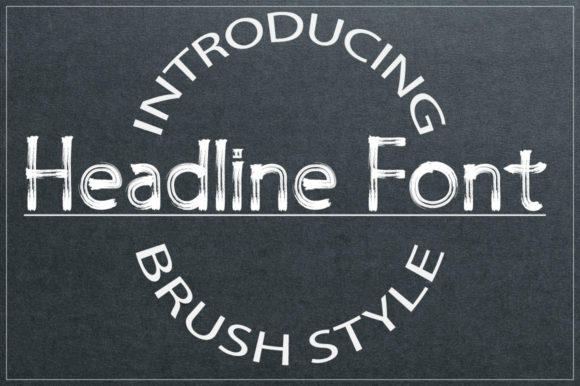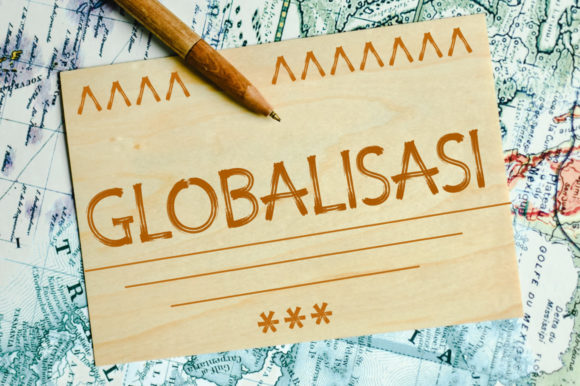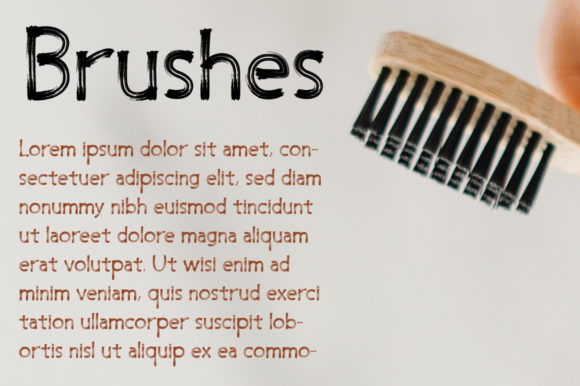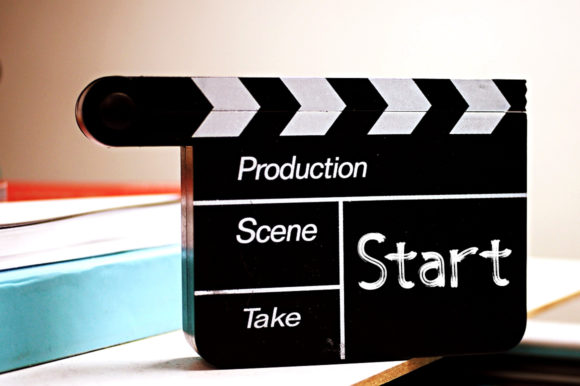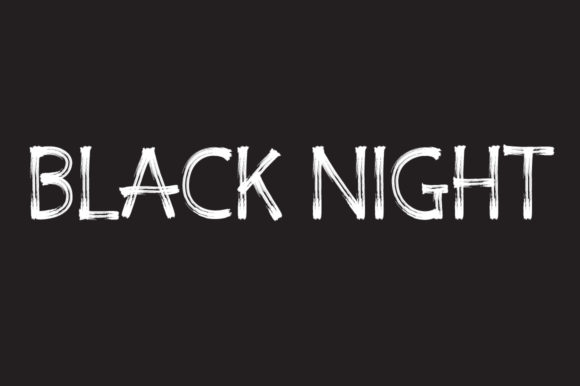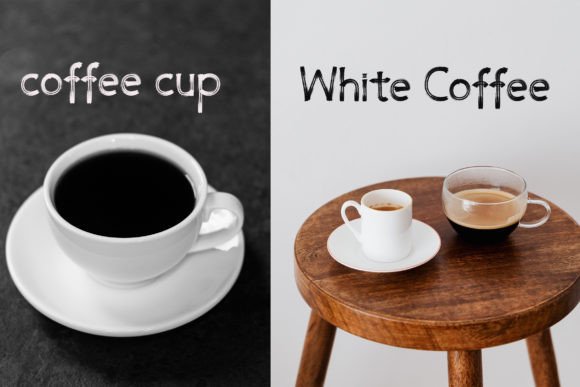
Introducing Headline Font: Elevate Your Designs with a Trendy Display Font
In the world of design, typography plays a crucial role in capturing the audience’s attention and conveying the message effectively. A well-chosen font can make all the difference in creating a lasting impression. If you’re a designer or crafter looking for a versatile and stylish font to enhance your creations, look no further than Headline Font. This adaptable, brushed, and trendy display font is about to become your new favorite asset.
What Makes Headline Font Stand Out?
Headline Font boasts a unique blend of modernity and sophistication, making it perfect for a wide range of design projects. Whether you’re working on a logo, branding materials, social media graphics, or website headers, this font is designed to elevate your creations and leave a lasting impact.
Its brushed texture adds a touch of elegance and refinement, giving your designs a distinctive look that sets them apart from the crowd. The trendy feel of Headline Font ensures that your work stays fresh and contemporary, appealing to modern audiences.
Key Features of Headline Font
- Adaptable: Headline Font is incredibly versatile, allowing you to use it across various design projects, from digital media to print materials.
- Brushed Texture: The font’s brushed texture adds a level of sophistication and elegance, making it perfect for high-end designs.
- Trendy: Stay on top of design trends with Headline Font’s modern and fresh feel.
- Display Font: Designed specifically for display purposes, Headline Font is optimized for large sizes, making it ideal for headlines, titles, and captions.
Headline Font offers numerous benefits for designers and crafters, including:
- Time-Saving: With Headline Font, you can quickly create stunning designs without spending hours searching for the perfect typography.
- Consistency: Use Headline Font across multiple projects to maintain a consistent visual brand identity.
- Creativity Boost: The font’s unique texture and style can inspire new creative directions and ideas.
- Easy to Read: Despite its decorative nature, Headline Font remains highly legible, ensuring your message is conveyed effectively.
Tips for Using Headline Font Effectively
To get the most out of Headline Font, consider the following tips:
- Pair with Simplicity: Balance Headline Font with simpler fonts to create visual harmony.
- Experiment with Colors: Take advantage of the font’s versatility by trying out different colors and textures.
- Use for Headlines and Titles: Optimize Headline Font for large sizes to create eye-catching headlines and titles.
- Play with Sizes: Don’t be afraid to experiment with different font sizes to add visual interest to your designs.
| Font Name | Headline Font |
| Author | Bahrul Studio |
Headline Font is an incredible asset for any designer or crafter looking to elevate their creations with a trendy and adaptable display font. Its unique brushed texture, modern feel, and versatility make it perfect for a wide range of design projects. By incorporating Headline Font into your typography arsenal, you’ll be able to create stunning designs that capture attention and leave a lasting impression.
So why wait? Discover the creative possibilities with Headline Font and take your designs to the next level.